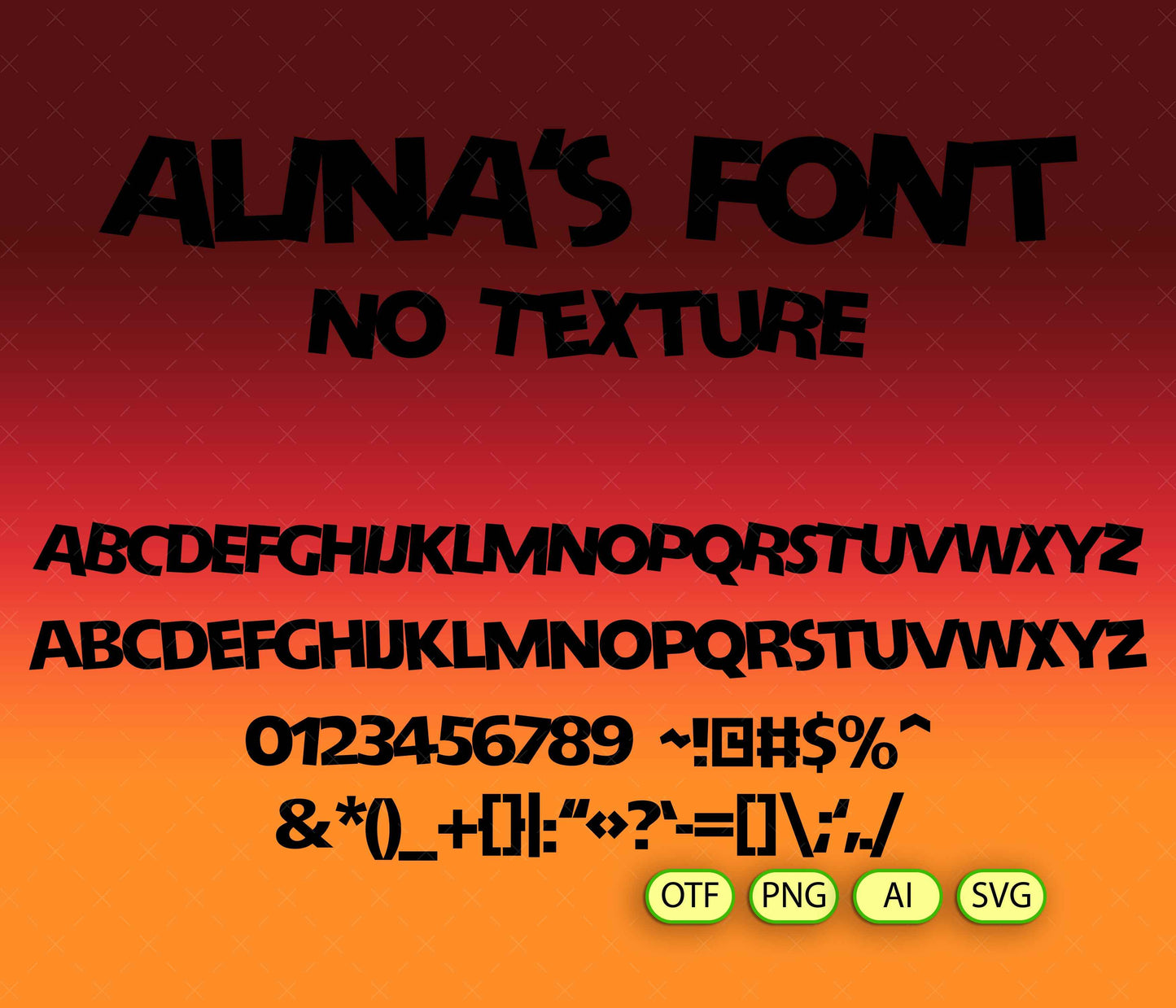
Cartoon Classics Font
Journey into the golden age of animation with our Cartoon Classics font, capturing the timeless charm of slapstick comedy and memorable characters. Perfect for bringing that classic animated zaniness to your creative projects.
Our Cartoon Classics font features bouncy letterforms and playful elements reflecting the spirit of classic animation. Ideal for:
- Event Promotions: Create lively invites, posters, banners for cartoon-themed celebrations
- Merchandise Design: Design fun T-shirts, posters, accessories for fans of classic animation
- Digital Media: Enhance websites, blogs, social media with nostalgic headers and graphics
- Story Content: Perfect for comic strips, storyboards, animated art projects
- Personal Projects: Ideal for scrapbooking, DIY crafts, and retro-themed decorations
Our font celebrates the golden age of animation, bringing classic cartoon charm to every design. Whether creating party materials, designing merchandise, or adding whimsy to personal projects, this font captures the spirit of timeless animated entertainment.